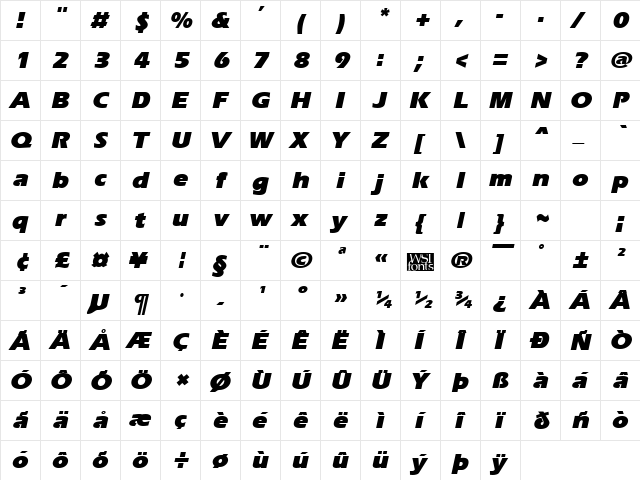
ErgoeBlack Italic
Design Context for ErgoeBlack Typeface
ErgoeBlack takes a measured approach to typography — its balanced proportions and neutral character make it a reliable workhorse for both digital and print work. The slanted form adds forward momentum and visual energy.
Pro Tip: Try ErgoeBlack for annotation and caption copy alongside an upright companion — the contrast in angle creates a dynamic but ordered typographic system.